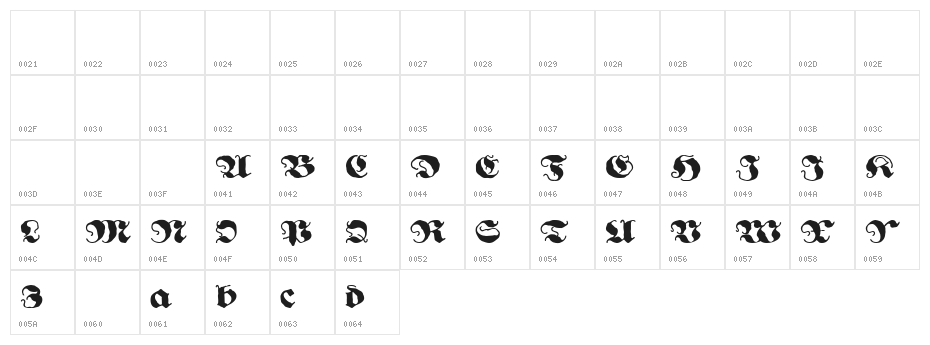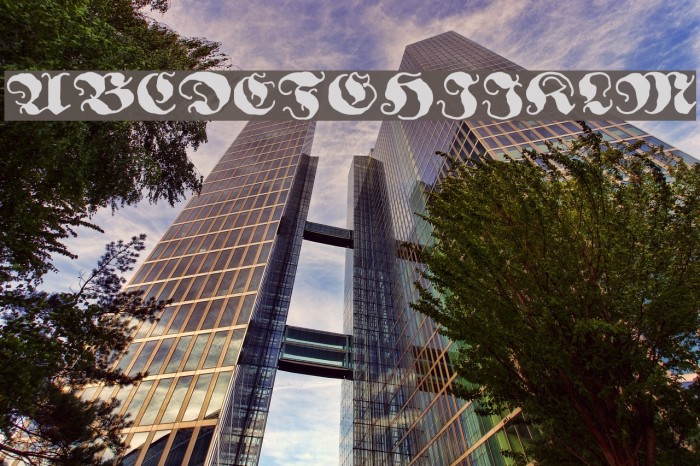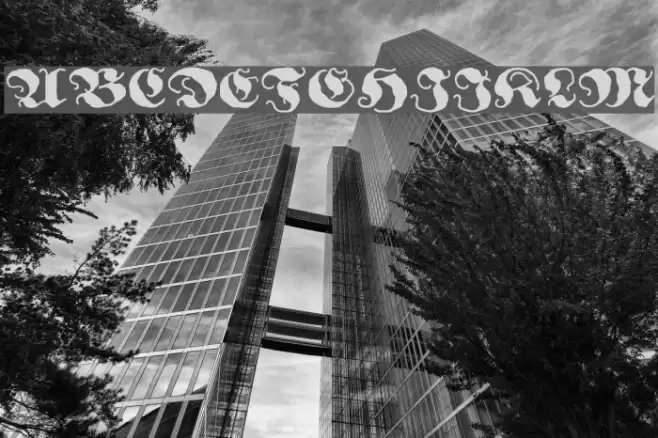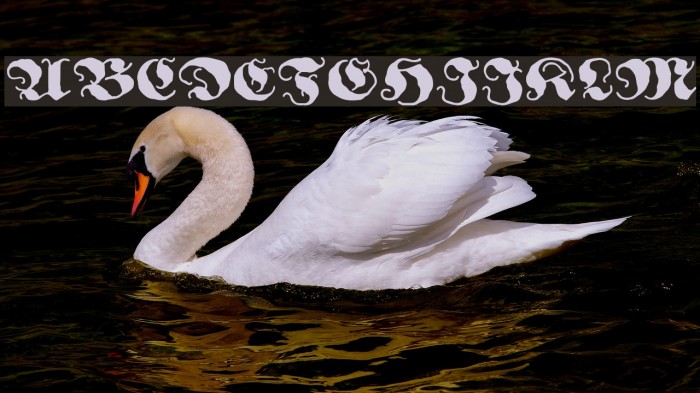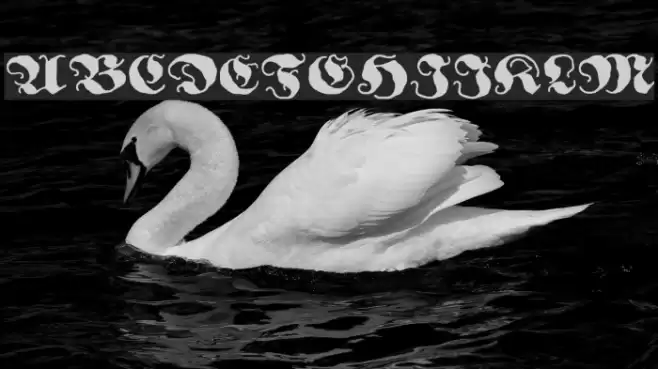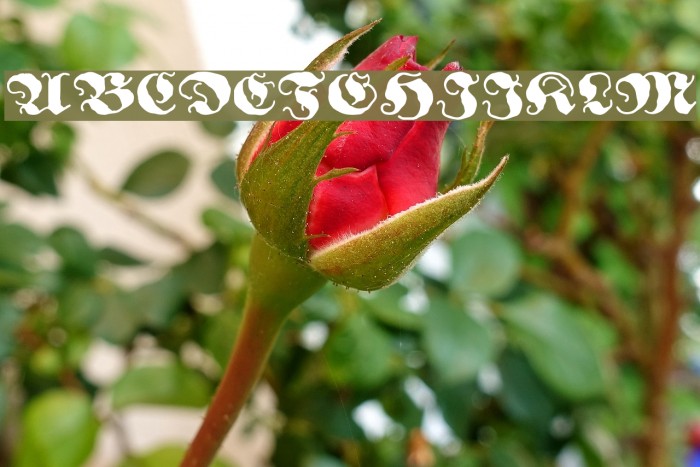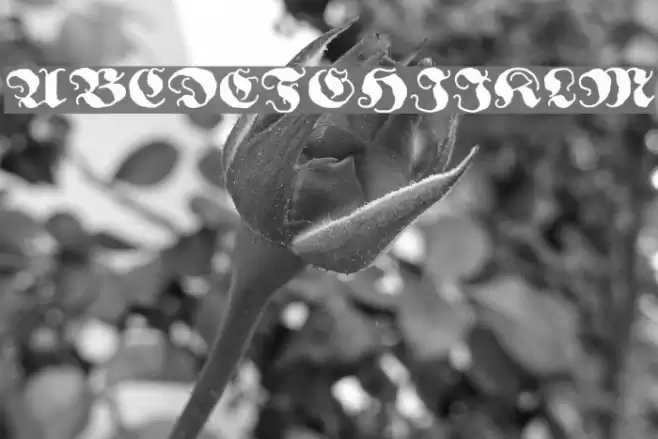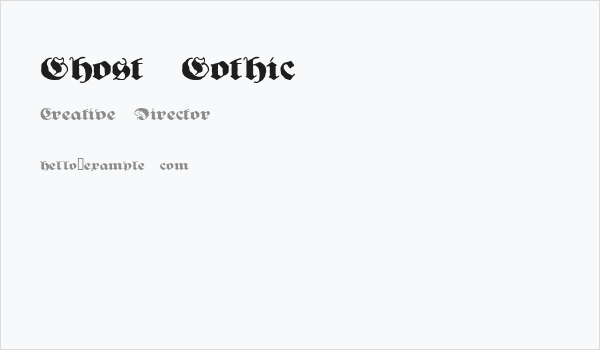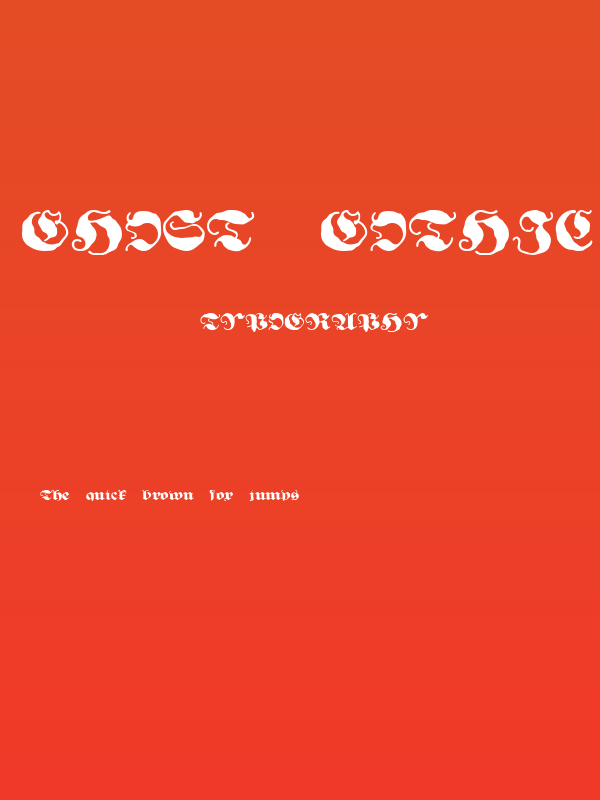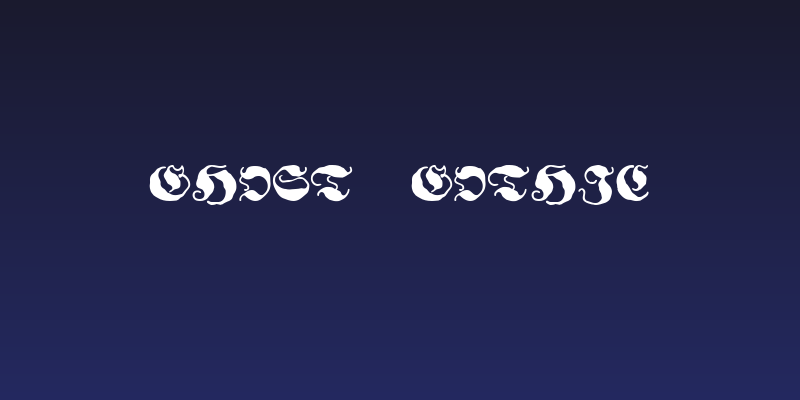
Ghost Gothic Font
Ghost Gothic Description
This font embodies a classic Gothic style with intricate, sharp edges and ornate detailing. The uppercase letters are bold and commanding, featuring elaborate flourishes that give a sense of historical grandeur. The lowercase letters maintain the same decorative style, with a slightly more subdued presence, making them highly legible while retaining their unique character. The numbers and special characters are equally ornate, ensuring consistency across all text elements. This font is perfect for creating a dramatic and impactful visual statement, ideal for projects that require a touch of elegance and tradition.
| Proposed Projects | Ideal for vintage-themed designs, book covers, posters, and branding that requires a classic Gothic touch. |